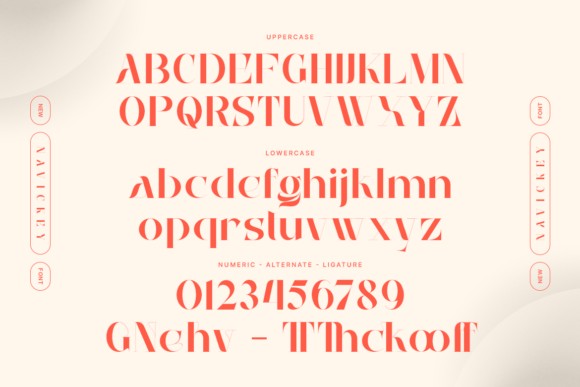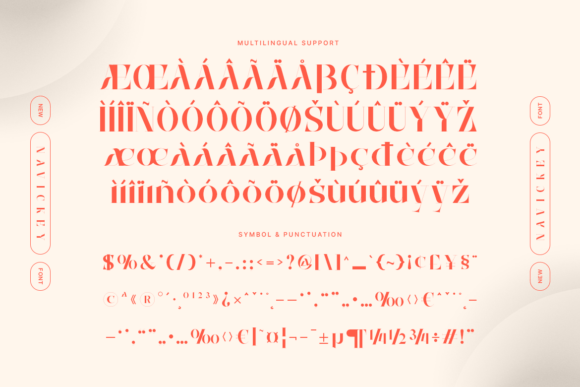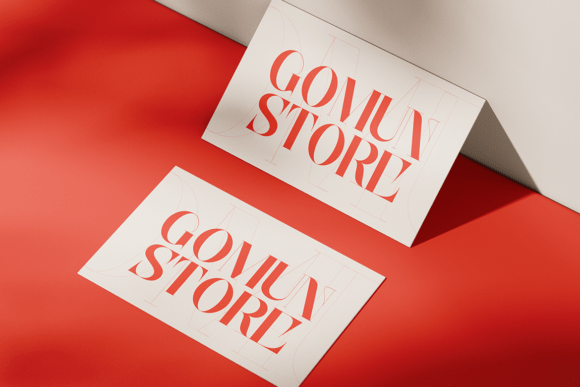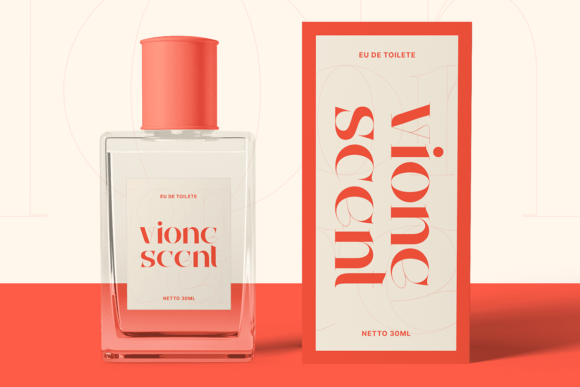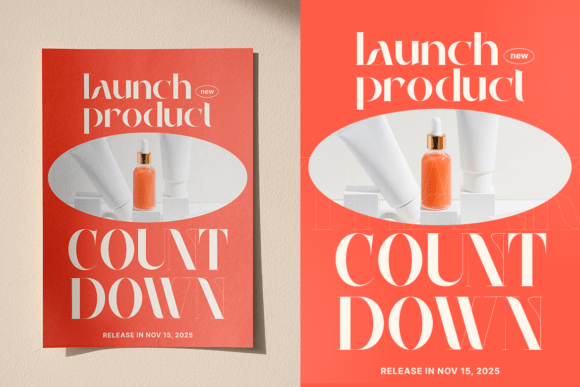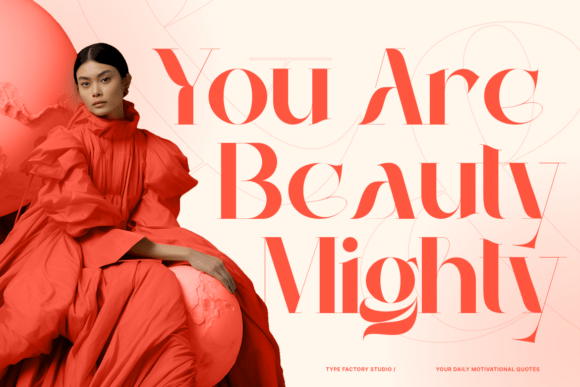
Introduction to Navickey Font
Navickey is a modern stylish serif typeface featuring elegant high-contrast letterforms and refined curves.
The design combines classic serif structure with contemporary fashion-inspired proportions, creating a sophisticated and expressive typographic style Its distinctive shapes and smooth transitions between thick and thin strokes make Navickey ideal for display typography.